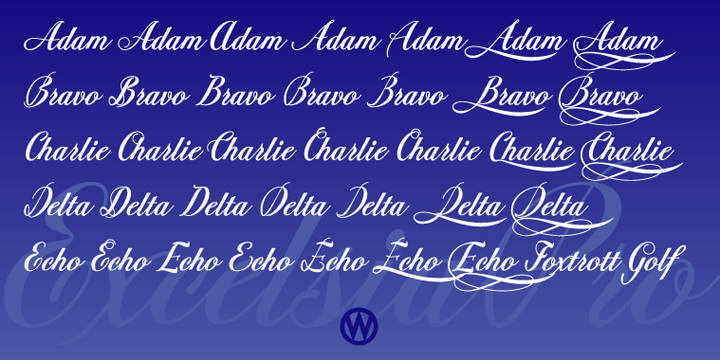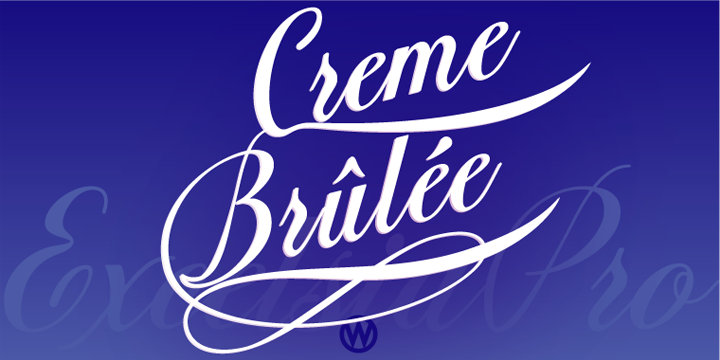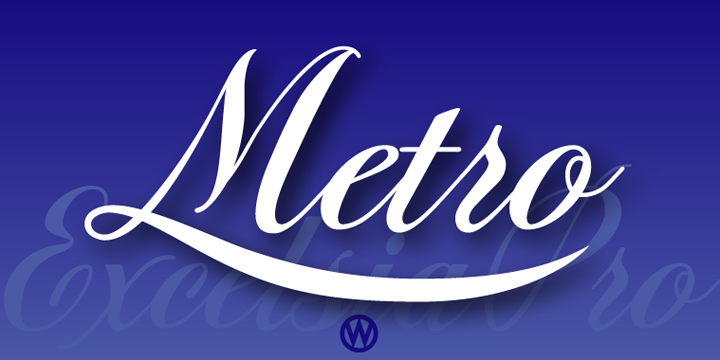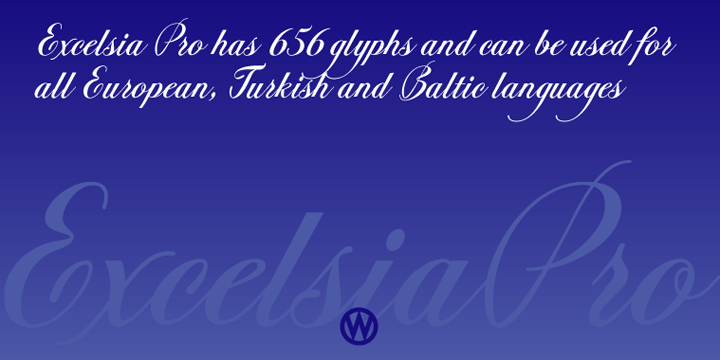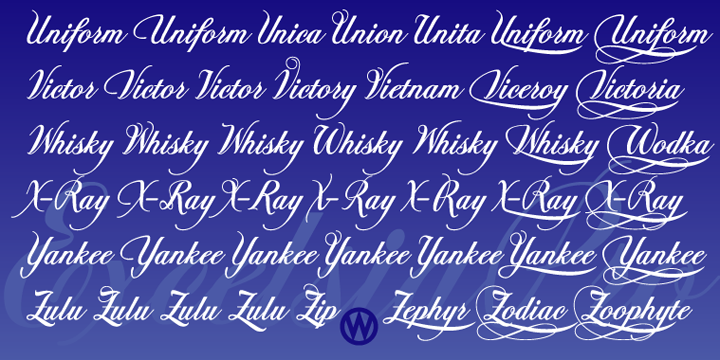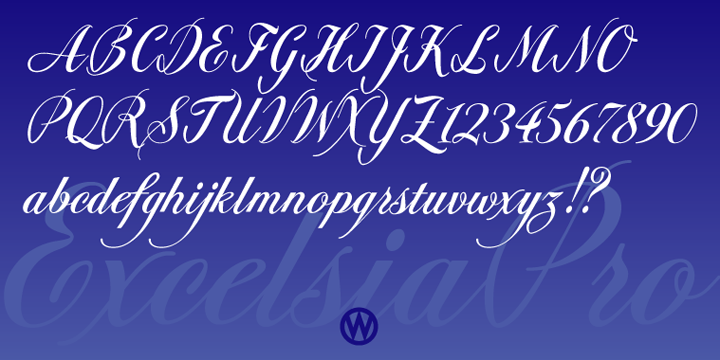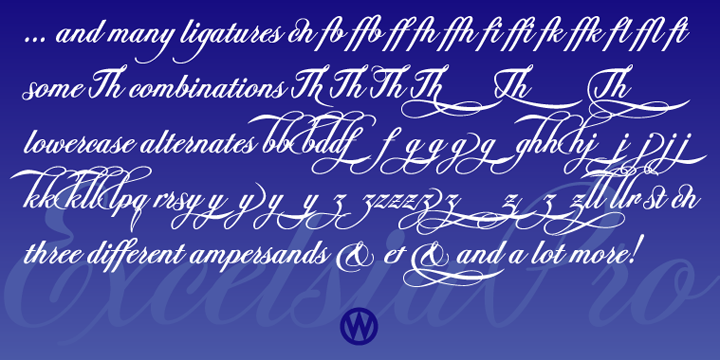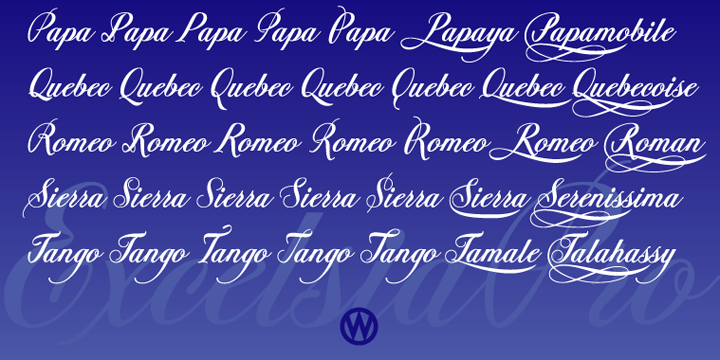
Excelsia Pro is a script font published by Wiescher-Design.
»Excelsia Pro« Script is a beautiful narrow script designed in the tradition of Bodoni and Fournier, it has lots of variations. There are for example seven different versions for the uppercase letters that can be accessed with opentype savy software. different ampersands, @-signs, Th combinations, lots of different lowercase letters and so on. The font can be used in all of Europe, Turkey and the Baltic countries (sorry no Greek and Cyrillic). Yours very versatile Gert Wiescher